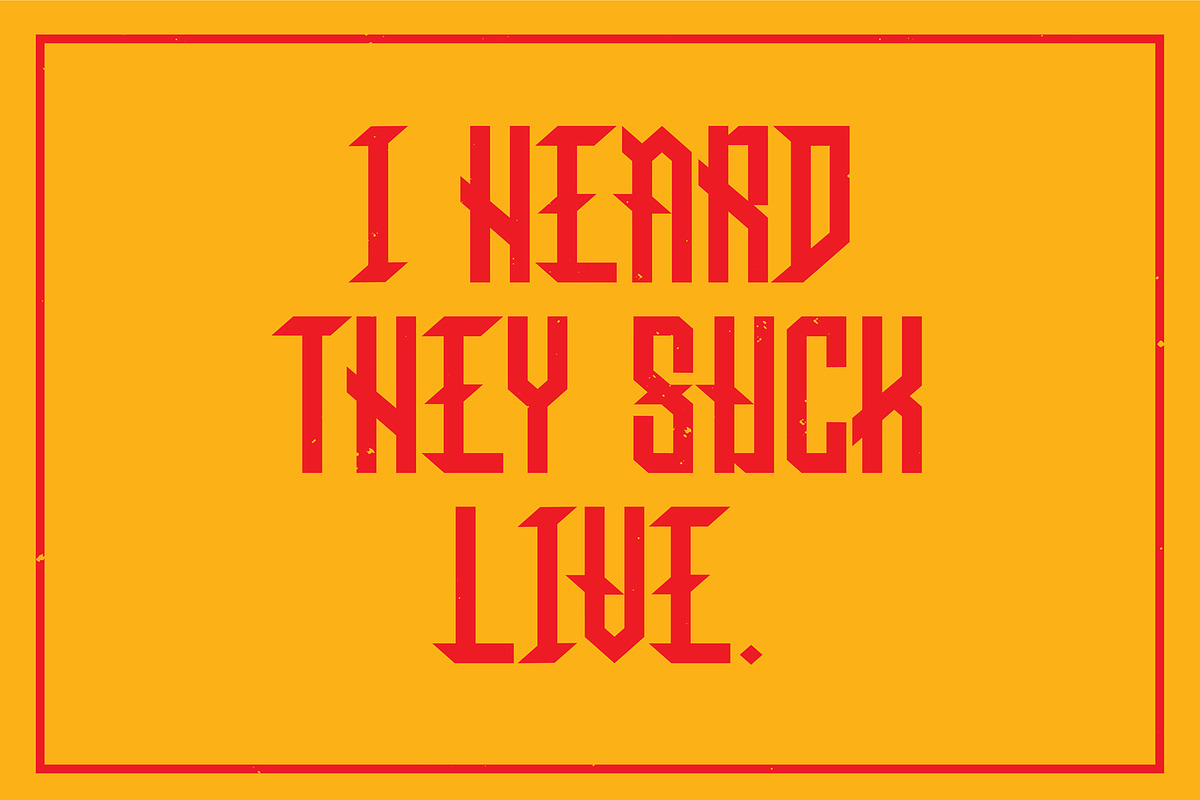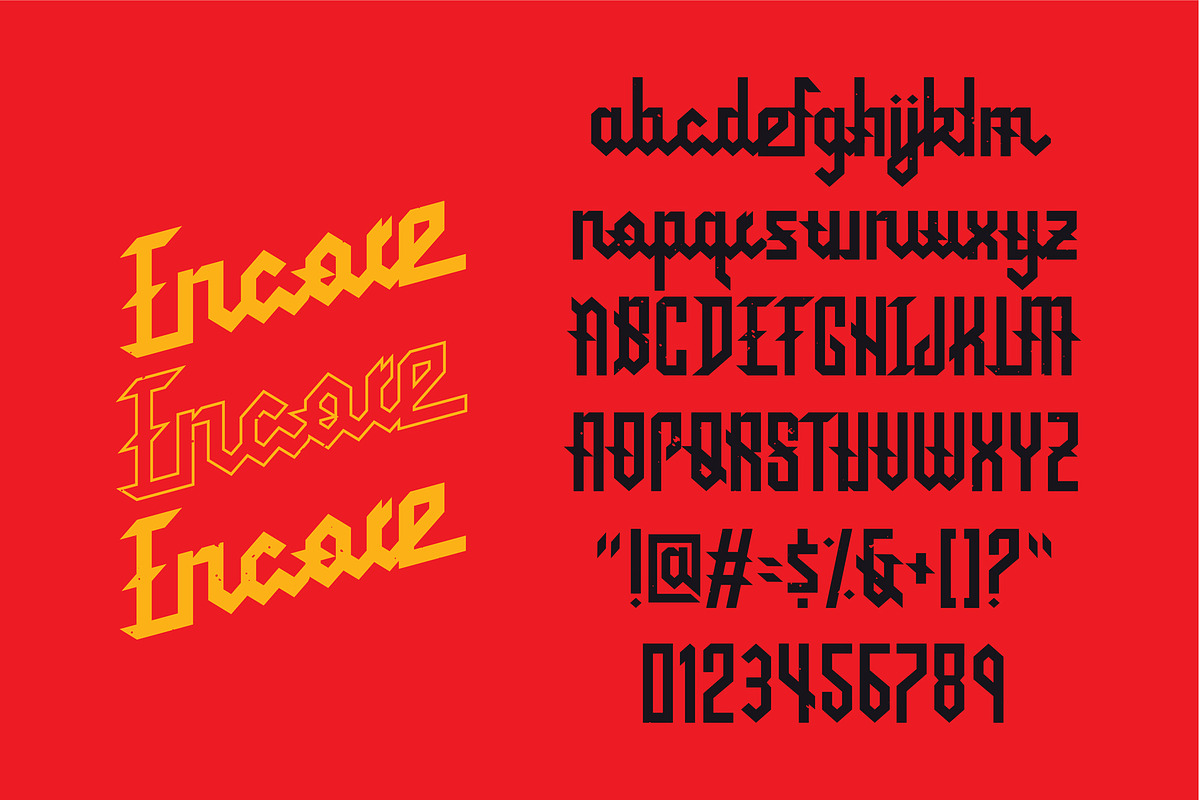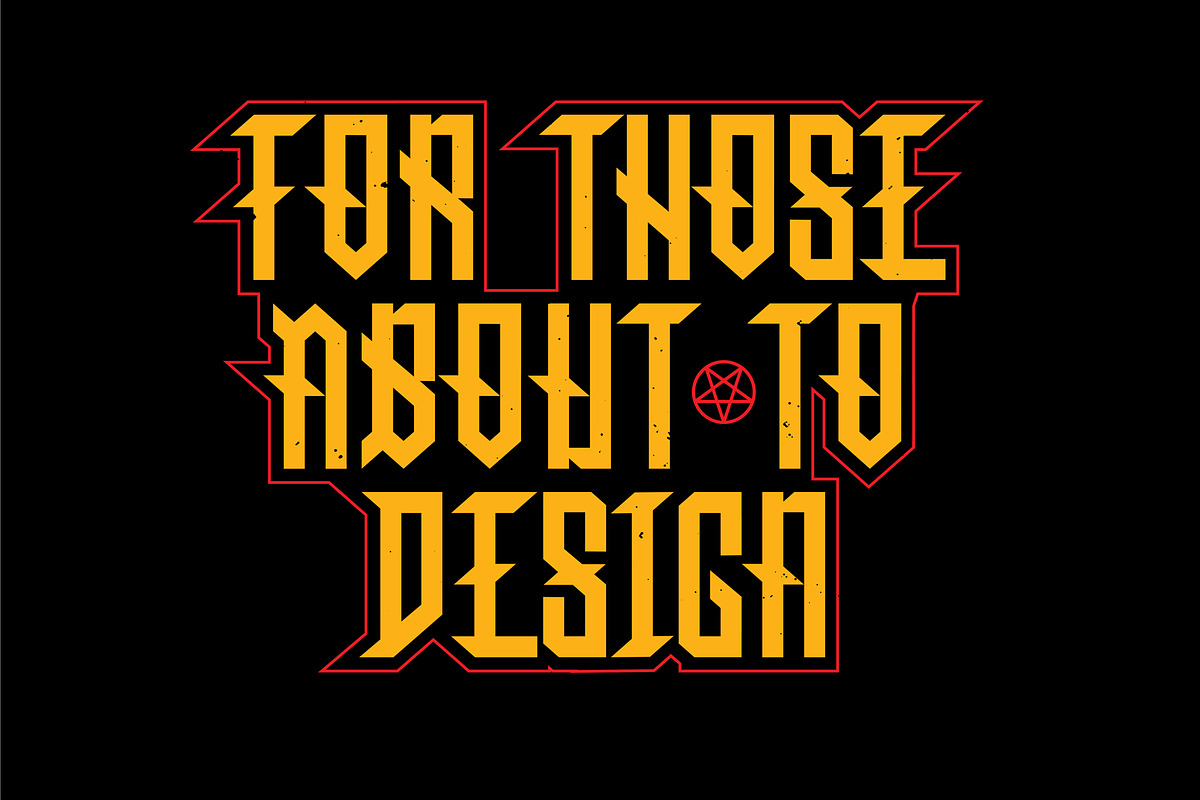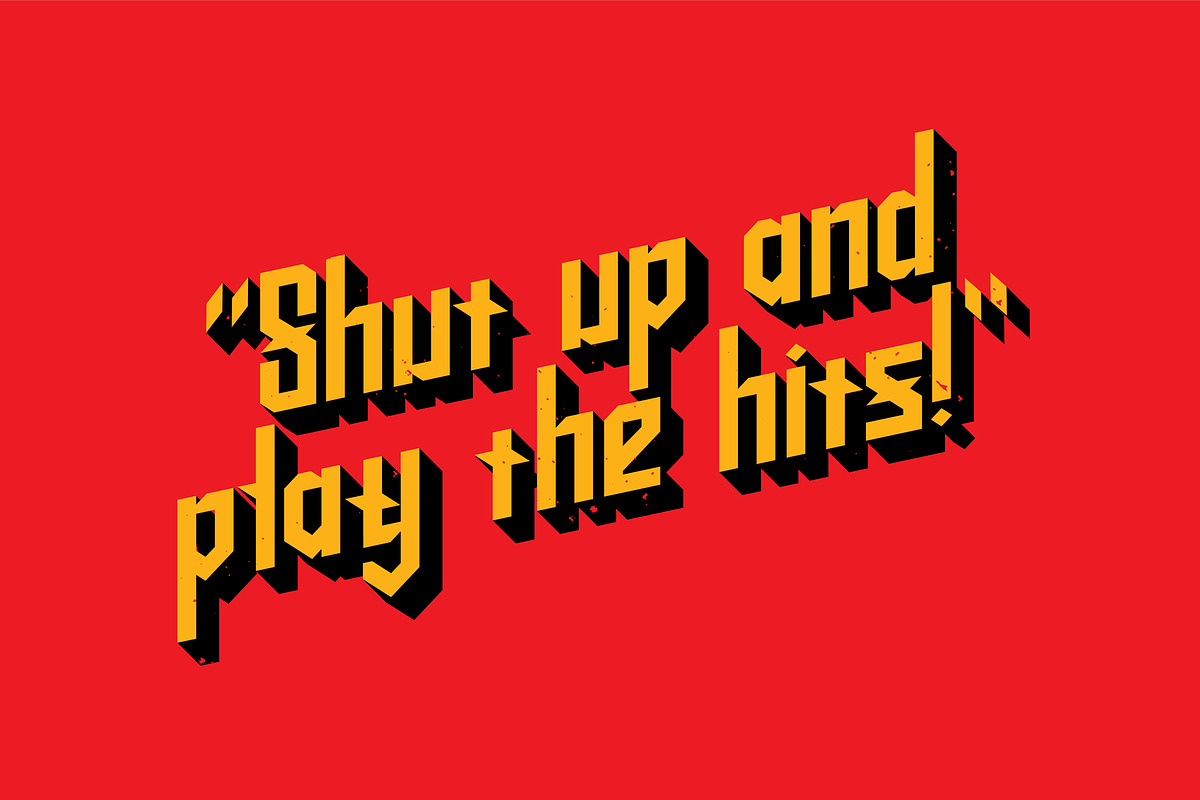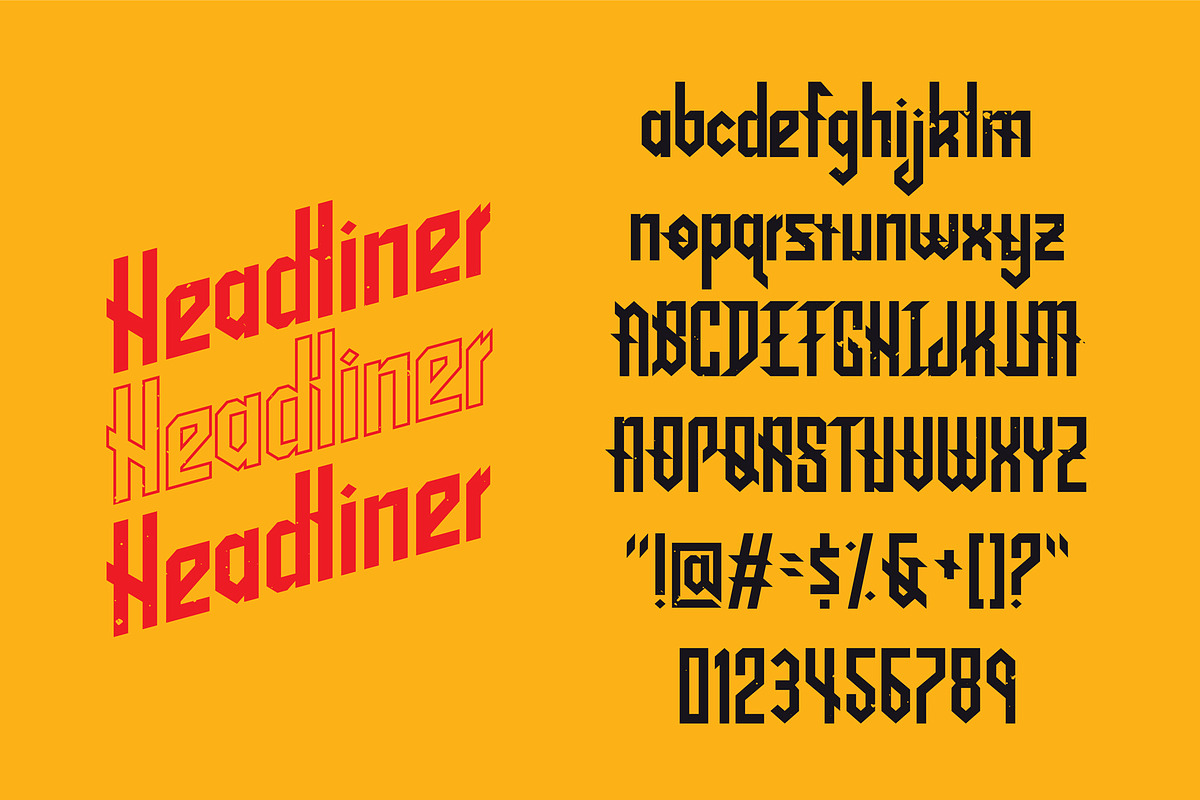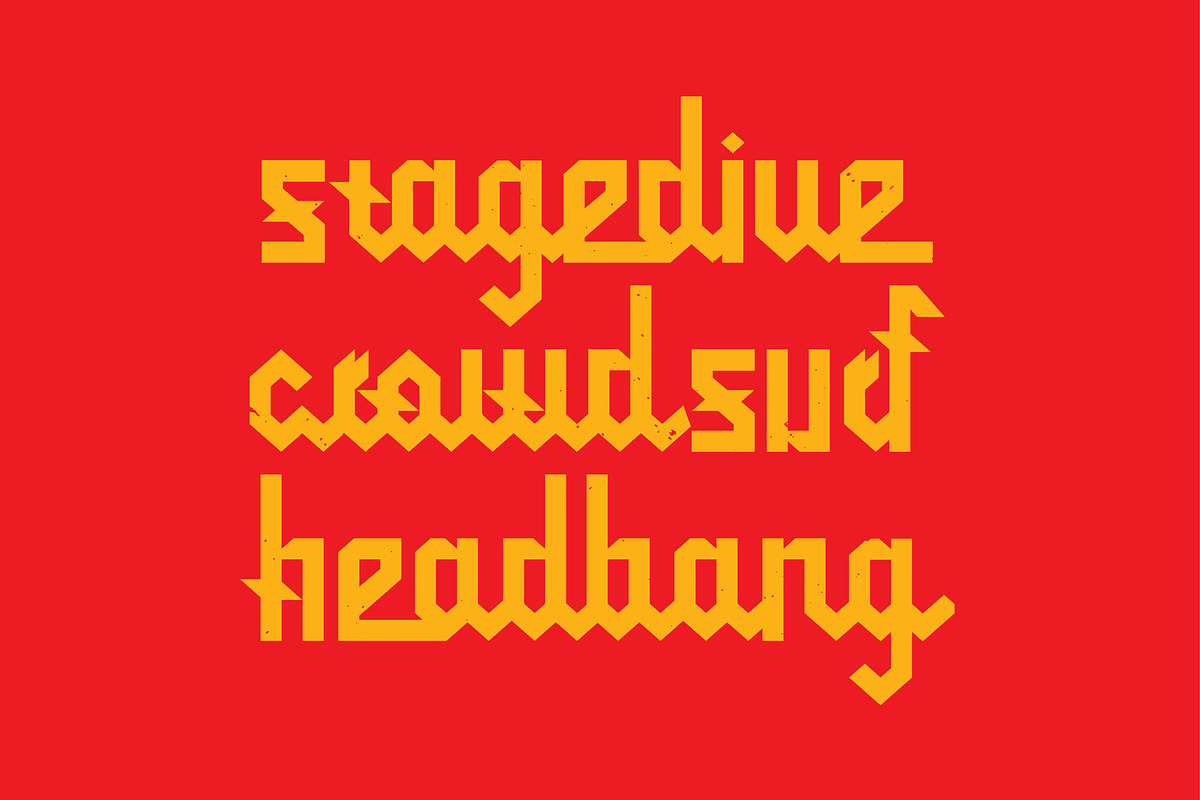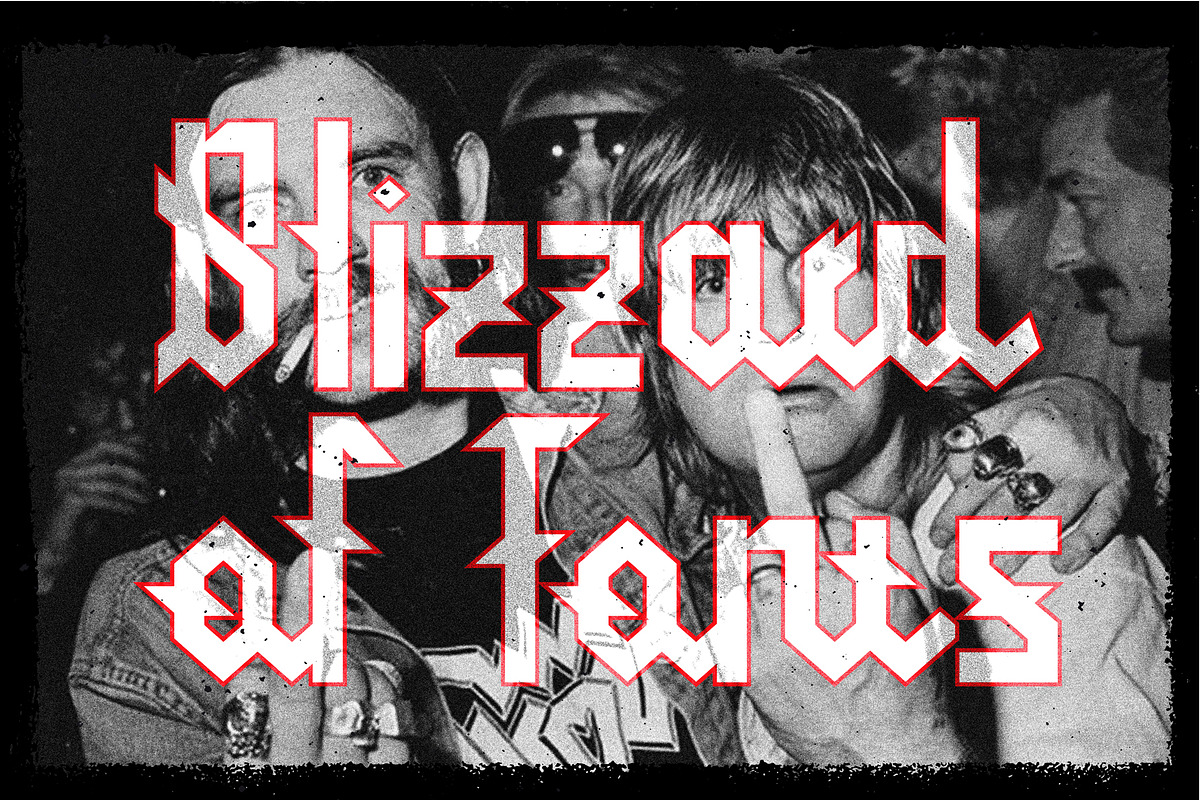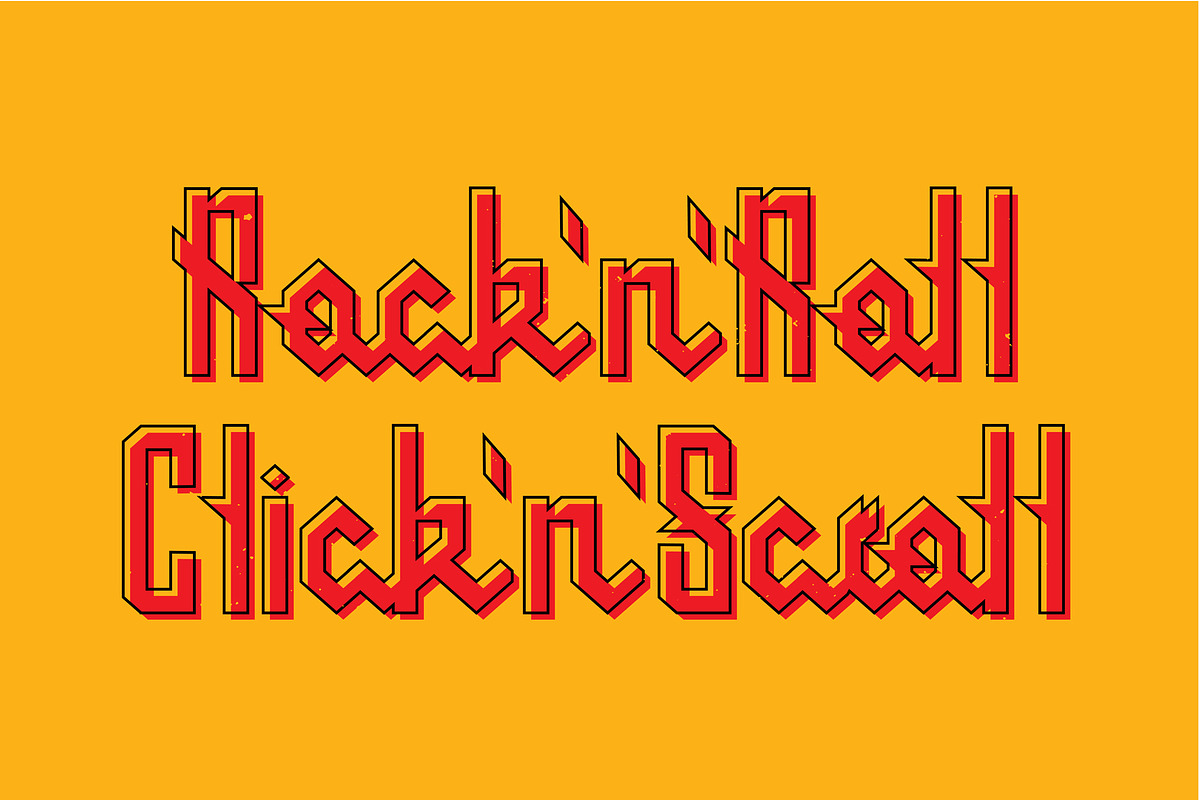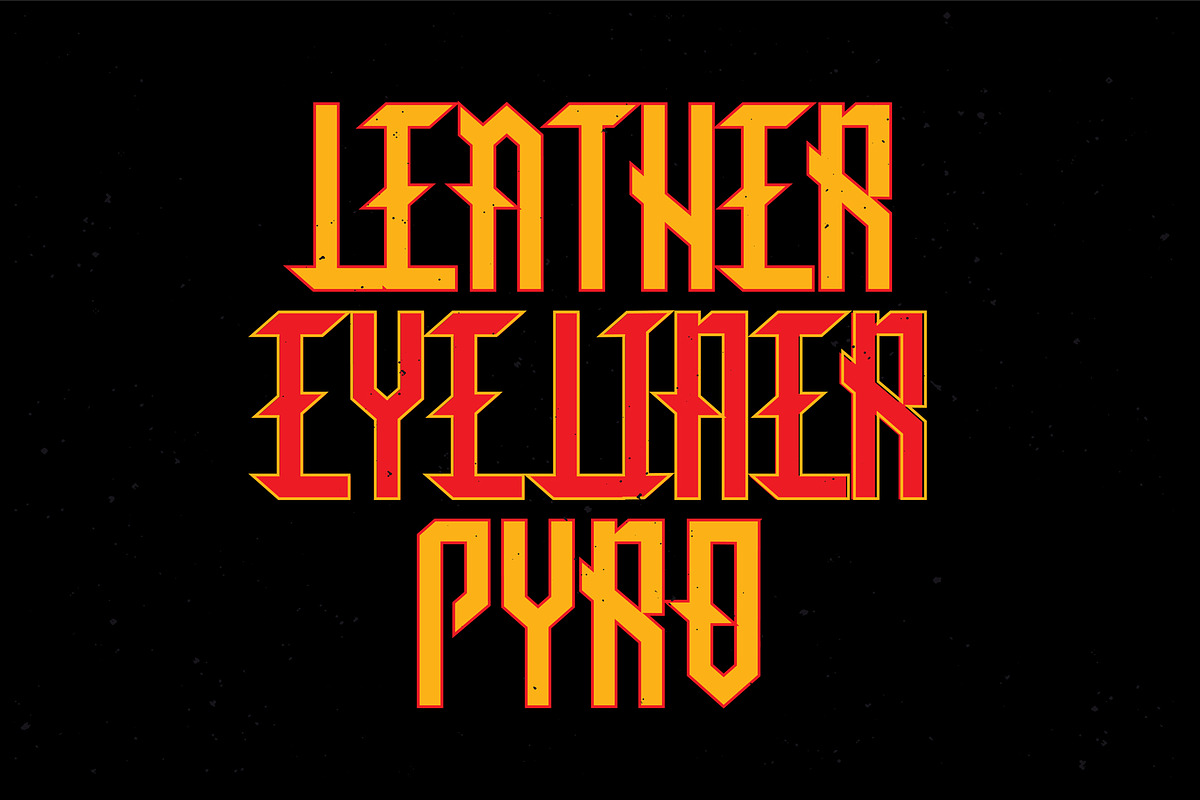
Judas Blackletter Display Font
Gatekeepers step aside. To fully immerse yourself with this dual-style blackletter display font it doesn’t matter if you saw “This is Spinal Tap”, hand-stitched patches onto your sleeveless jean jacket, or “borrowed” your older brother’s Motorhead mixtape for a summer, but it surely wouldn’t have hurt. It’s like Ozzfest without the hearing loss, tattoos of your ex without the regret, or leather pants without the smell. Raise your horns, bang your head, and please download responsibly for instant metal street cred.
Comes in 2 Styles, Headliner and Encore, as well as lower case and uppercase and punctuation.